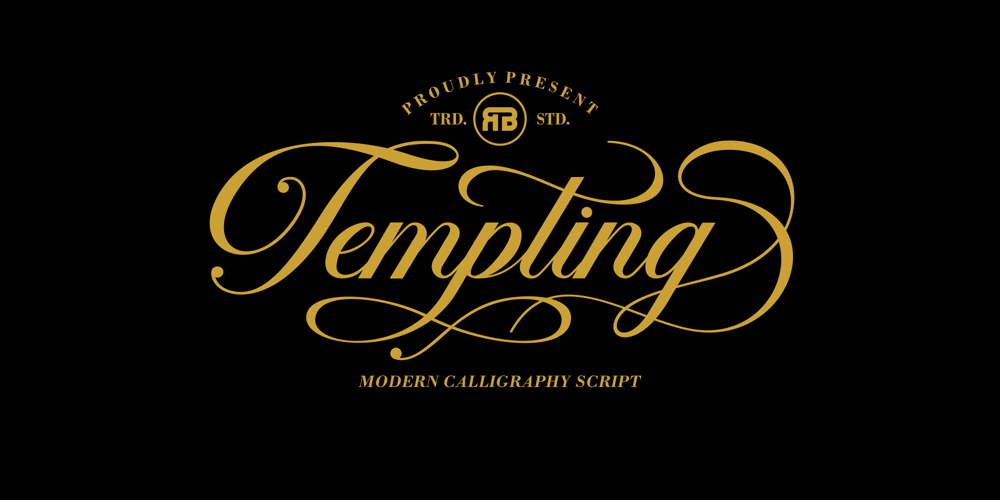
Tempting Font Family was designed by MOH. MA’IN and published by RGB Studio. Tempting contains 1 styles and family package options. Tempting Script is one of the Elegant script fonts that comes with a very beautiful character change, a kind of classic copper decorative script with a modern touch, designed with high detail to present an elegant style. Files Include : Basic Latin A-Z and a-z Numbers Symbols PUA Encode Multilanguage Support Tempting Script is interesting because the typeface is pleasing to the eye, clean, feminine, sensual, glamorous, simple and very easy to read, because of the many luxurious letter connections. I also offer a number of decent stylistic alternatives for some of the letters. This font perfectly made to be applied especially in logo, and the other various formal forms such as invitations, labels, logos, magazines, books, greeting / wedding cards, packaging, fashion, make up, stationery, novels, labels or any type of advertising purpose. Tempting has 349+ , including multiple language support. With OpenType features with alternative styles and elegant. The OpenType features don’t work automatically, but you can access them manually and for best results your creativity will be required in combining variations of these Glyphs. I highly recommend using a program that supports OpenType features and the Glyphs panel such as Adobe Illustrator, Adobe Photoshop CC, Adobe InDesign, or CorelDraw, so that you can view and access all variations of Glyphs. Thanks and have a wonderful day, If you have any questions, please get in touch with usDon’t forget to check out our other products.